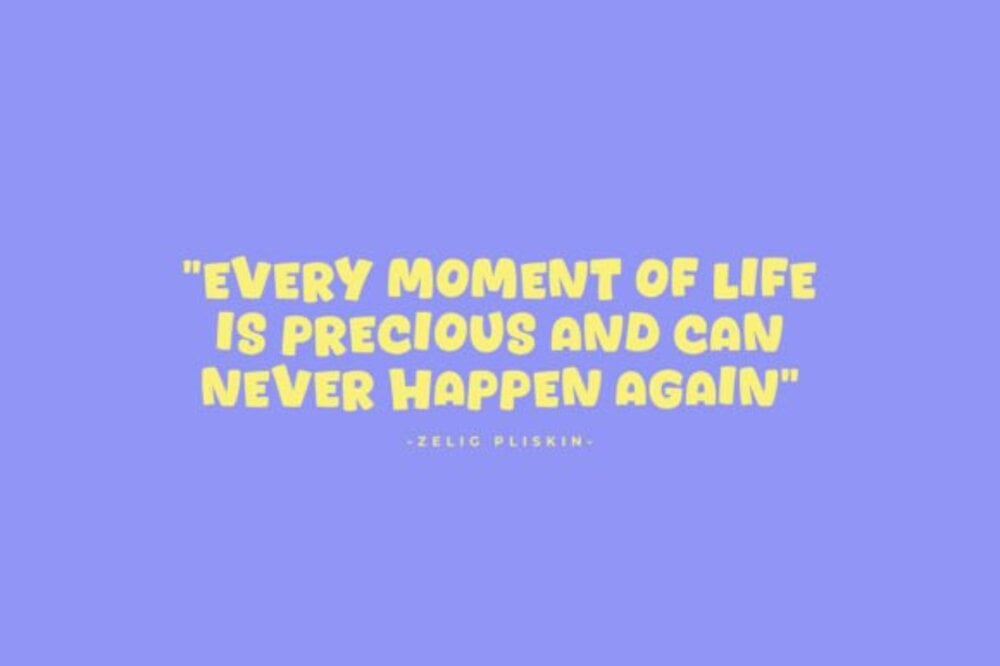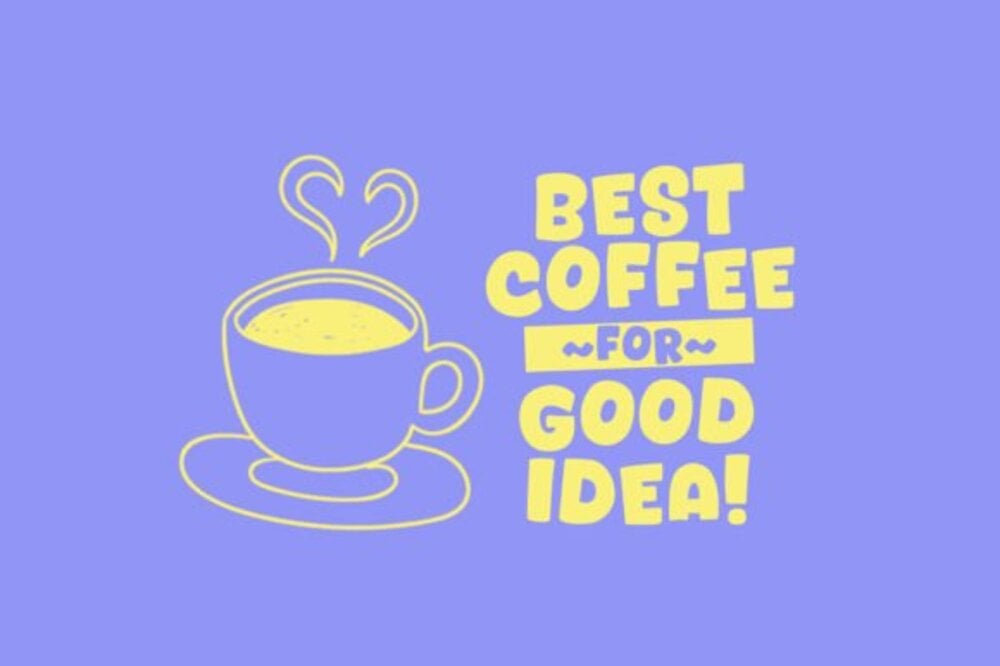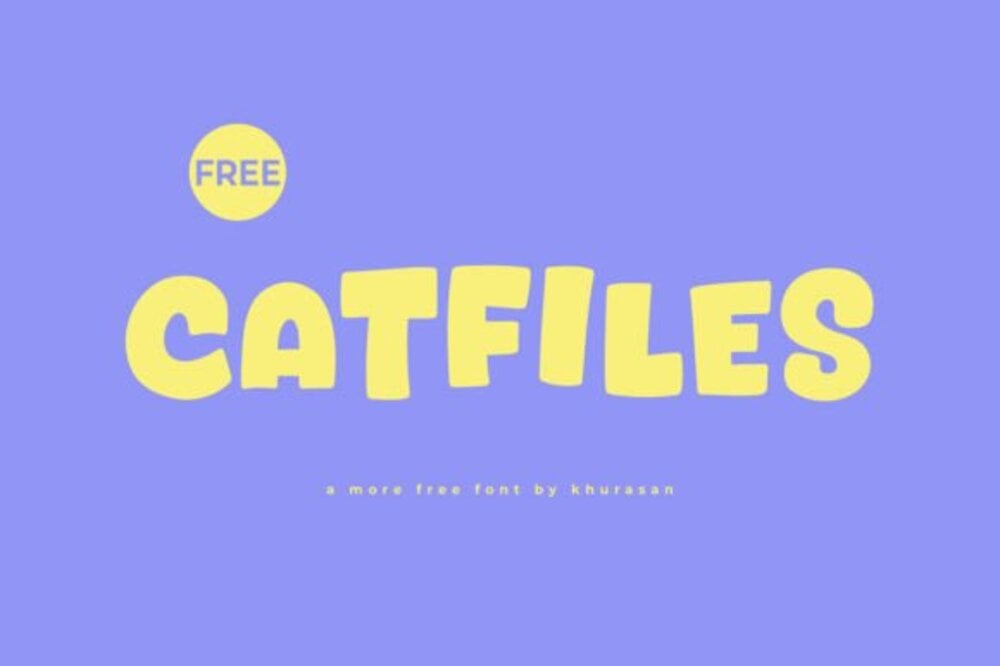
Catfiles Font
Catfiles is a quirky and playful font inspired by the whimsical world of cats. Its irregular, hand-drawn characters capture the charm and curiosity of feline movements, making it perfect for pet-related designs, children’s projects, or playful branding. With its unique, fun style, Catfiles brings a lighthearted touch to any creative work, adding a sense of fun and personality.